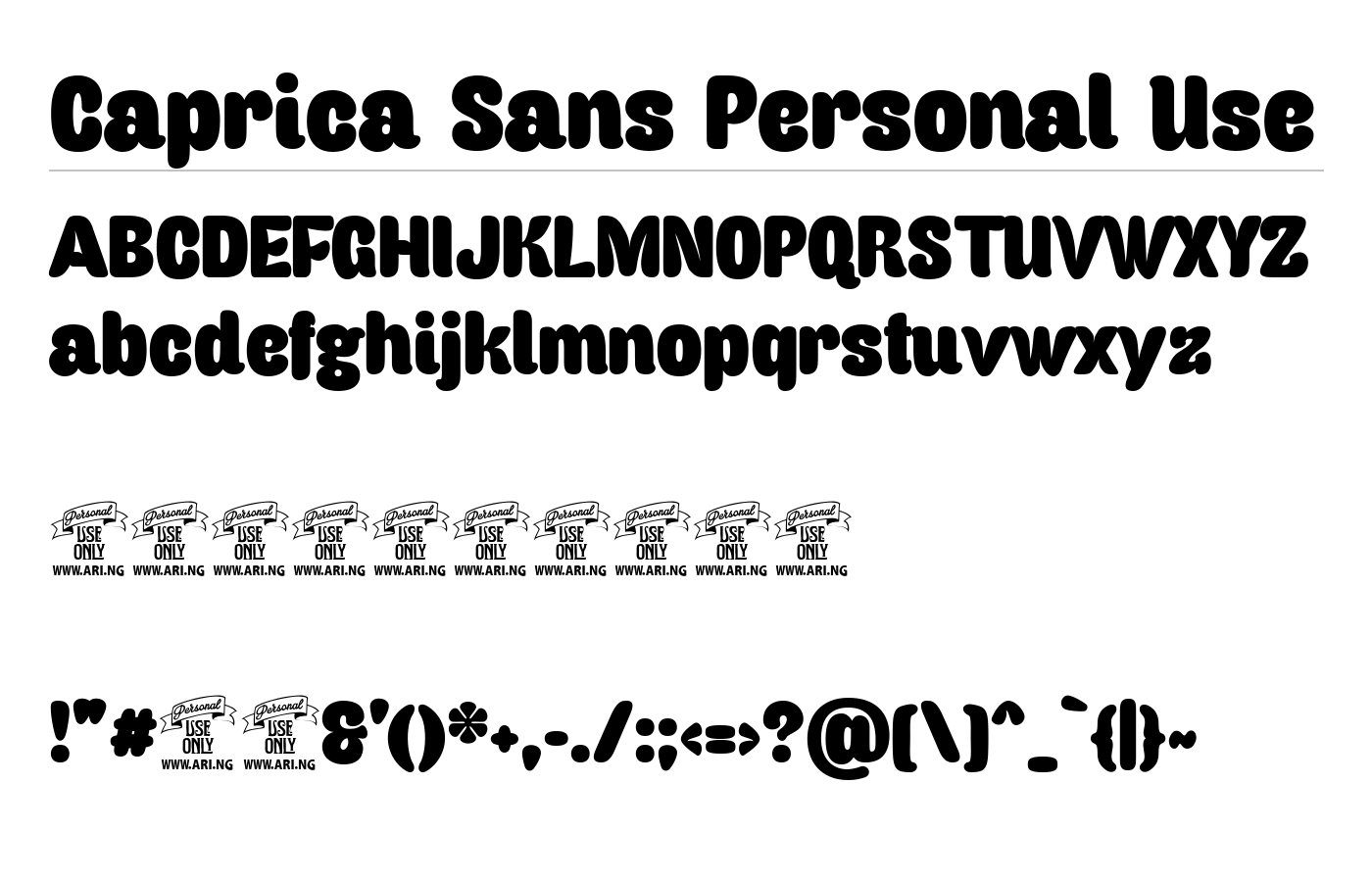
Caprica Sans Personal Use is a bold, playful sans serif font with rounded, thick strokes that give a friendly and approachable feel. Its unique, chunky letterforms with a slightly condensed width work well for attention-grabbing headlines, logos, and casual branding. This font's warm, informal style makes it ideal for creative projects, children's products, and fun, vibrant designs.
Caprica Sans Personal Use Font
About Caprica Sans Personal Use Font